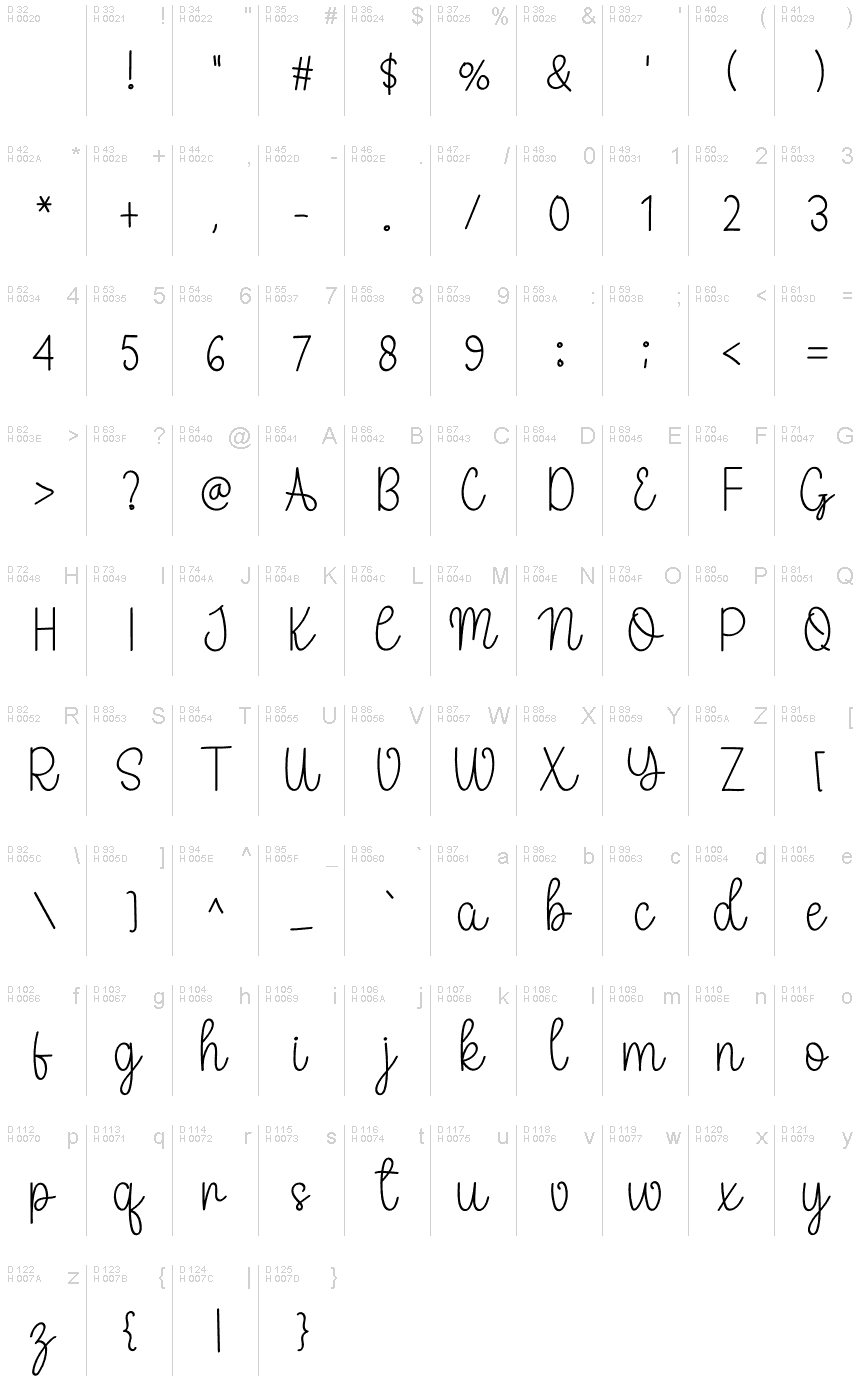
Farmhouse Handmade
Farmhouse Handmade, designed by Belina Studio, is a charming and playful font that exudes a warm, handmade feel. With its light weight and cute handwritten style, this font is perfect for adding a personal touch to any project. Whether you're creating invitations for a rustic wedding or designing labels for homemade products, Farmhouse Handmade is the ideal choice. Its organic and natural look will make your designs stand out from the crowd and bring a cozy and welcoming vibe to your work. Let your creativity run wild with Farmhouse Handmade!
the latest style letters are perfect for wall displays, wedding invitations, social media post logos, advertisements, product packaging, product designs, labels, photography, watermarks, invitations, stationery, and any project that requires taste handwriting.